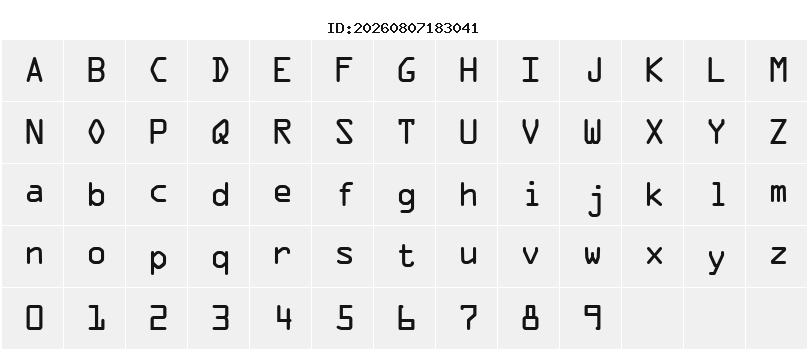
OCR-A Preview
• Font Name: OCR-A
• Font ID: SoftMaker Software GmbH OCR-A-Regular
• Full Font Name: OCR-A-Regular
• Version: Version 1.0 08-10-2002
• PostScript Name: OCRA
• Character Count: 406
• Designer: SoftMaker Software GmbH
• Manufacturer: SoftMaker Software GmbH
About OCR-A.ttf
OCR-A.ttf is a modern, elegant sans-serif font designed for ultimate readability and visual harmony. Perfect for branding, headlines, web design, and print materials.